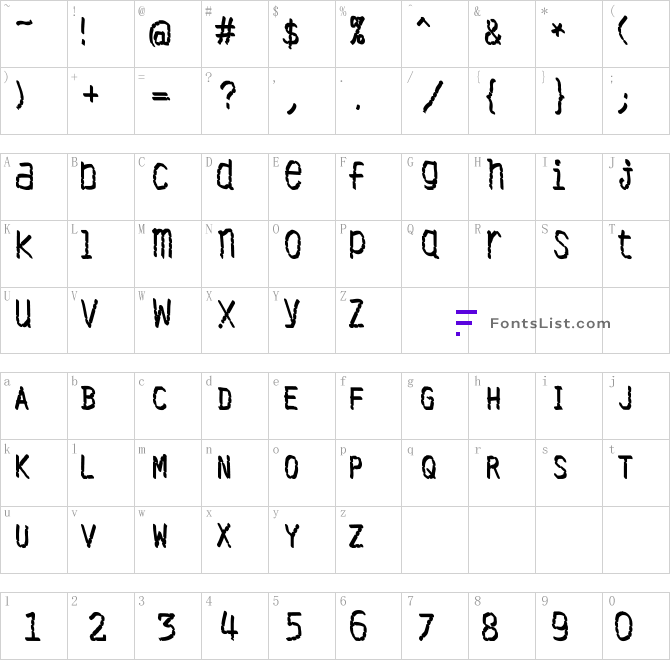
- Font Name:Antibiotic
Antibiotic.ttf is a very beautiful artistic font, Antibiotic.ttf is widely used in the design and printing of various books and pictures,Antibiotic.ttf has a strong visual impact,Antibiotic.ttf is a commonly used font in newspapers, magazines and books, and is used in posters, e-commerce Poster design, store design, logo design, font design and other fields.Antibiotic.